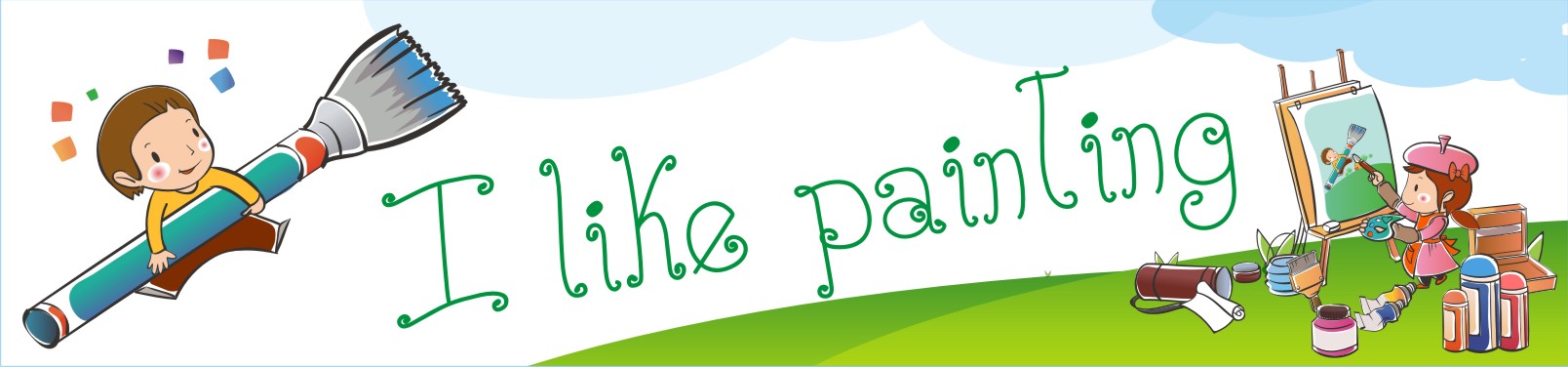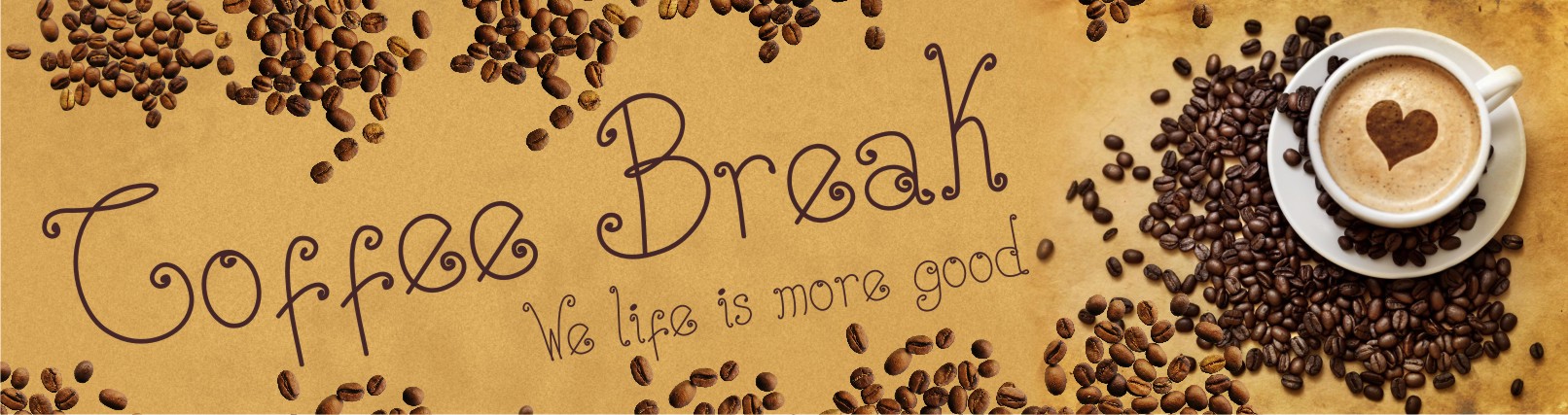
Discover the Beauty of Elizabeth Font: A Curly Delight by David Panca
In the world of typography, fonts play a crucial role in conveying messages, expressing emotions, and adding personality to designs. Among the numerous fonts available, Elizabeth font stands out for its unique, curly charm. Designed by David Panca, Elizabeth is a beautiful, handwritten font that has captured the hearts of designers and crafters alike. In this article, we’ll delve into the world of Elizabeth font, exploring its features, uses, and the creative mind behind it.
Who is David Panca?
David Panca is a talented font designer and creator of the Elizabeth font. With a passion for typography and a keen eye for detail, David has crafted a range of beautiful fonts that are both functional and aesthetically pleasing. His work is highly regarded in the design community, and Elizabeth font is one of his most popular creations.
Introducing Elizabeth Font
Elizabeth font is a stunning, curly script font that exudes elegance and whimsy. Its unique, hand-drawn design features flowing curves, intricate connections, and a touch of playfulness. The font is perfect for adding a personal touch to designs, making it ideal for projects that require a dash of personality and charm.
Key Features of Elizabeth Font
- Curly and playful design: Elizabeth font boasts a distinctive, curly style that adds a touch of whimsy to any design.
- Handwritten feel: The font’s hand-drawn nature gives it a warm, personal feel that’s perfect for creating unique and engaging designs.
- Elegant and sophisticated: Despite its playful nature, Elizabeth font is also elegant and sophisticated, making it suitable for a wide range of design projects.
- Multilingual support: The font supports multiple languages, making it a versatile choice for designers working on international projects.
Uses of Elizabeth Font
Elizabeth font is incredibly versatile and can be used in a variety of design projects, including:
- Branding and logos: The font’s unique design makes it perfect for creating memorable logos and brand identities.
- Wedding and event designs: Elizabeth font’s elegant and playful nature makes it ideal for wedding invitations, stationery, and event branding.
- Packaging and product design: The font’s curly design adds a touch of personality to packaging and product designs, making them stand out on store shelves.
- Digital and print media: Elizabeth font is suitable for use in digital and print media, including social media graphics, blog posts, and magazine articles.
Tips for Using Elizabeth Font
To get the most out of Elizabeth font, here are a few tips to keep in mind:
- Use it sparingly: Elizabeth font’s curly design can be overwhelming if used excessively. Use it sparingly to add emphasis and personality to your designs.
- Pair it with complementary fonts: Combine Elizabeth font with simpler fonts to create visual interest and balance in your designs.
- Experiment with colors and textures: The font’s playful nature lends itself well to creative experimentation with colors and textures.
Elizabeth font is a beautiful, curly script font that has captured the hearts of designers and crafters worldwide. Its unique design, elegant feel, and versatility make it an excellent choice for a wide range of design projects. Whether you’re a seasoned designer or a crafty DIY enthusiast, Elizabeth font is sure to inspire your creativity and add a touch of personality to your designs.